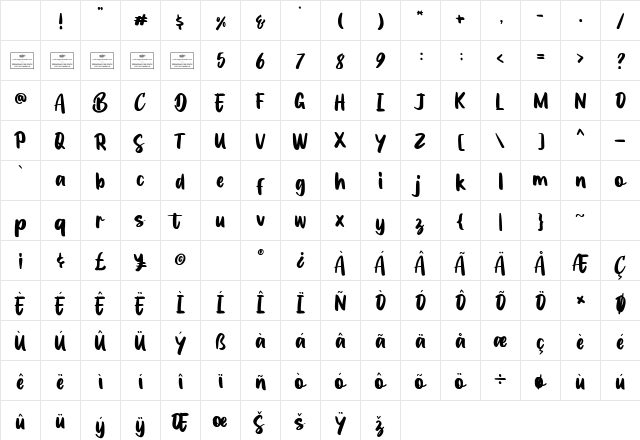
Woodlandia echoes the hand-painted signage and woodblock typography of the American frontier, with a warm, rugged personality.
Font Pairing: Combine Woodlandia with a simple slab or neutral sans - period-accurate companions reinforce the vintage feel without competing for attention.
Pro Tip: Use Woodlandia for short, impactful bursts of text - it shines in poster headlines and product names rather than extended copy.